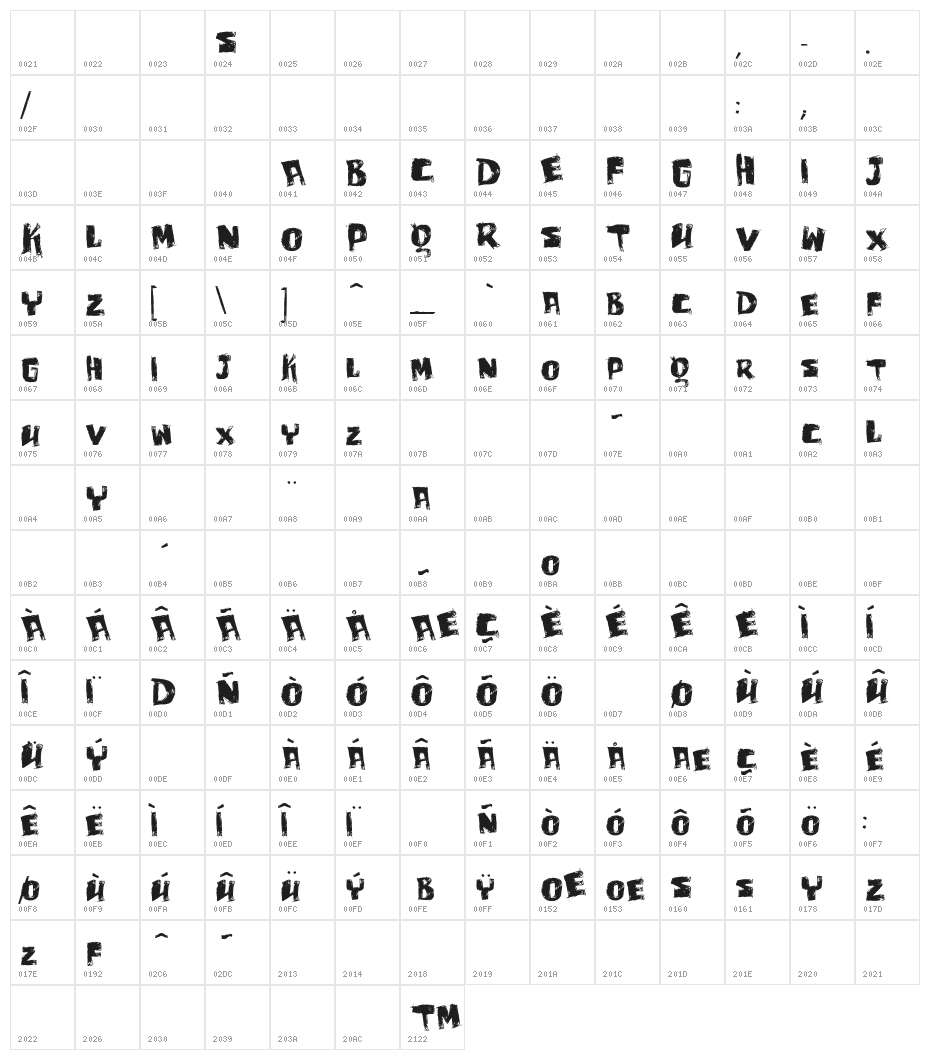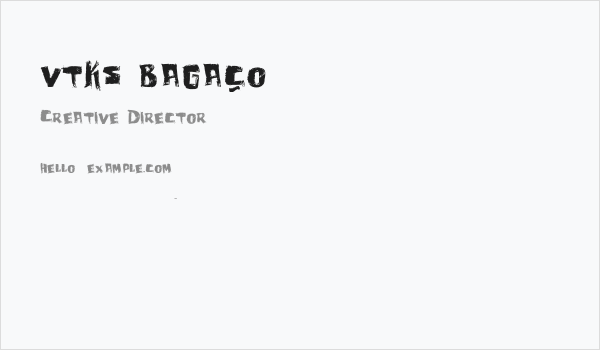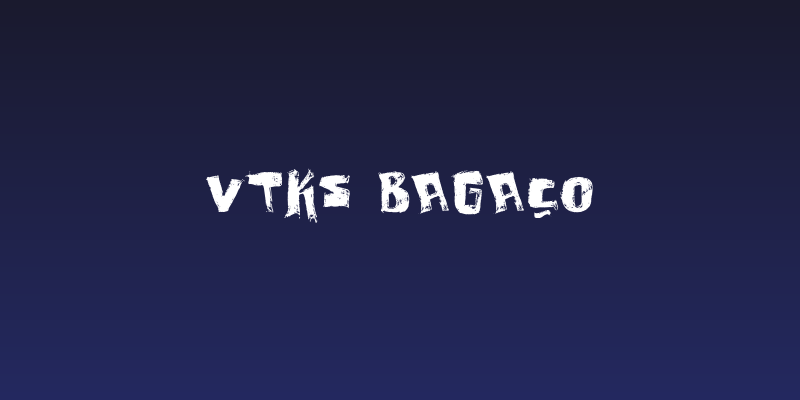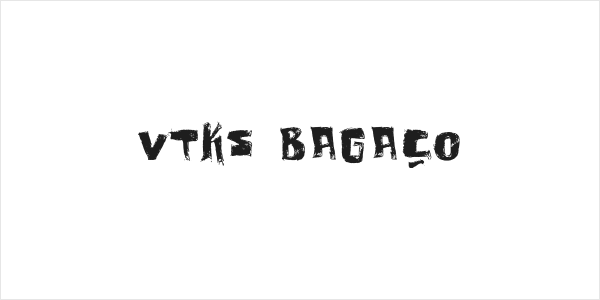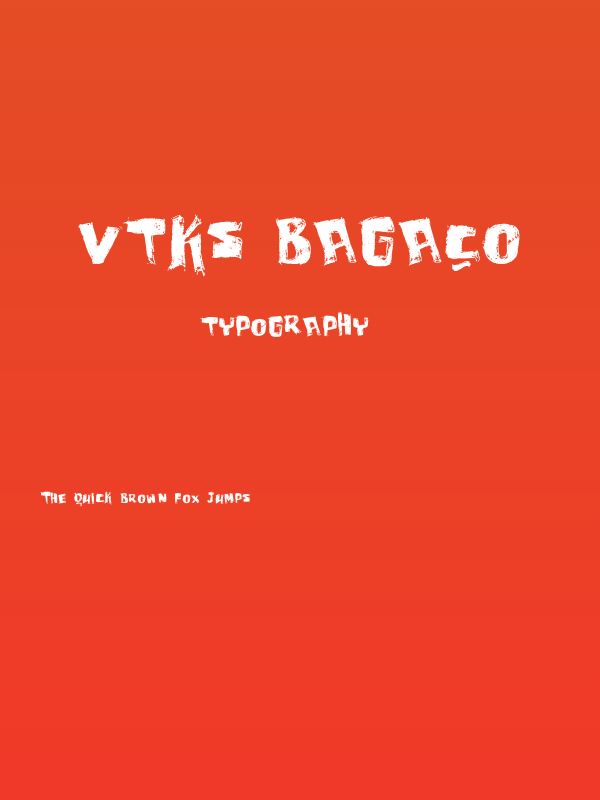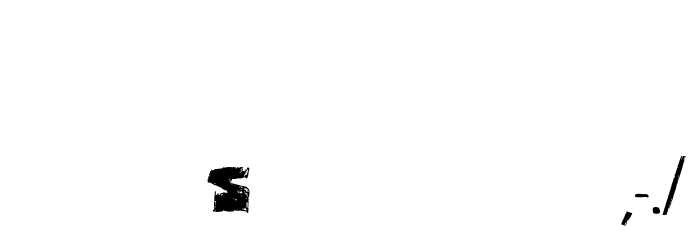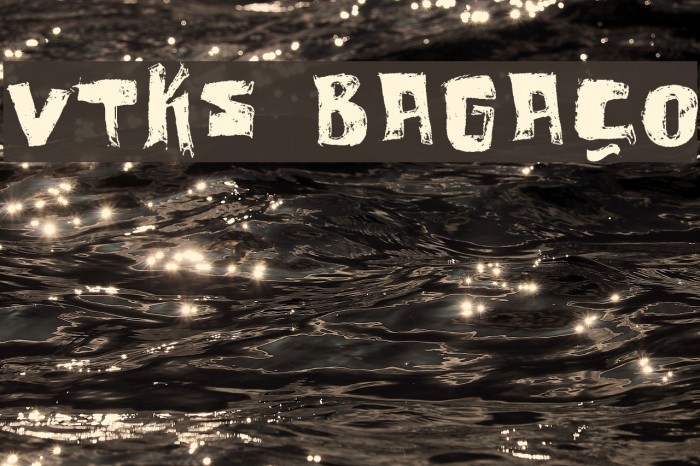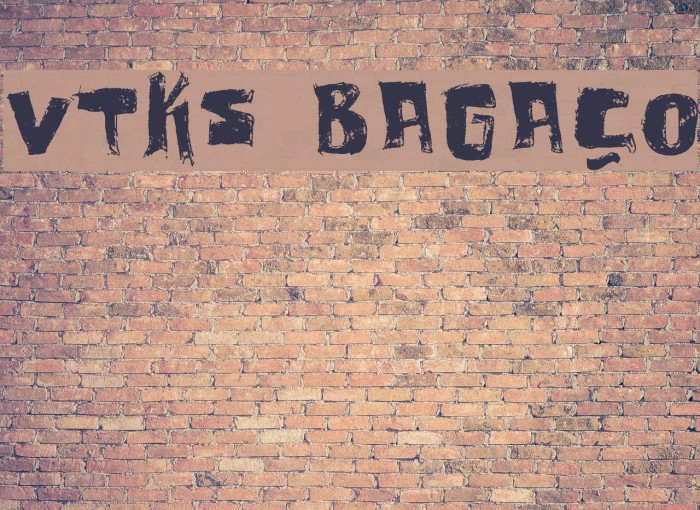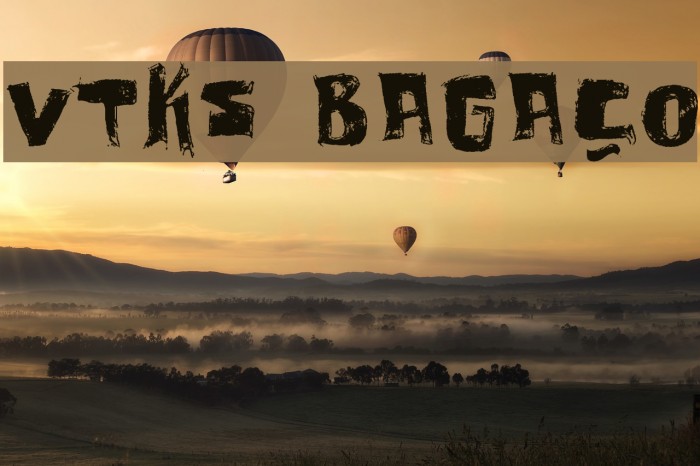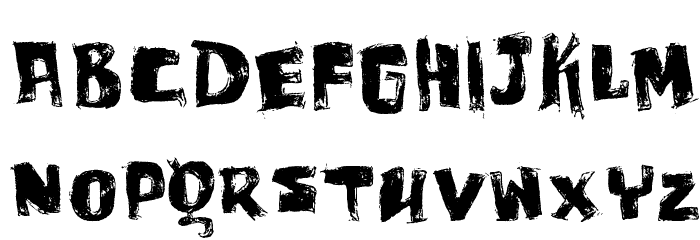
vtks bagaço Font
This font features a bold and rugged appearance, characterized by its distressed and grungy texture. Each letter is uniquely styled with rough edges and irregular shapes, giving it a hand-drawn, artistic feel. The uppercase and lowercase letters maintain a consistent design, while the numbers and special characters follow the same rough aesthetic. This font's distinctive style makes it stand out, perfect for projects that require a bold statement or an edgy look.
| Proposed Projects | Ideal for album covers, posters, urban-themed designs, and any project needing a bold, artistic touch. |